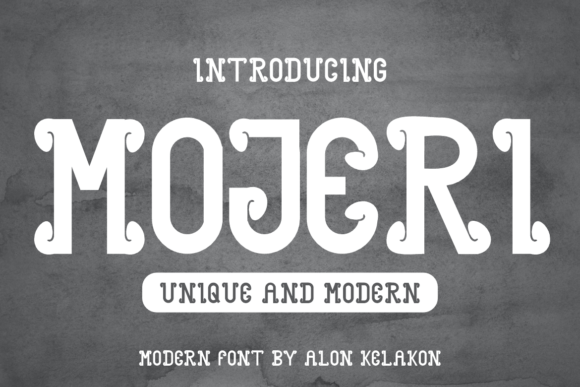
Immerse yourself in the captivating world of Mojeri: a font that embodies elegance and charm, meticulously crafted to bring a touch of sophistication to your design endeavors. With its graceful curves and delicate flourishes, Mojeri exudes a timeless allure that will leave a lasting impression on your audience.
As a decorative font, Mojeri shines in crafting official letters, invitations, and certificates. Its refined and legible style exudes professionalism and attention to detail. The smooth flow of its letters effortlessly guides the reader through your content, enhancing comprehension and engagement.
Mojeri is also a versatile font, adapting harmoniously to a wide range of design projects. Its intricate details lend an air of elegance to wedding invitations, adding a touch of romance and creating an unforgettable keepsake for your special day. Unleash your creativity and let Mojeri elevate your branding materials, transforming them into captivating visual statements that resonate with your audience.
For those with a passion for handwritten notes and personalized touches, Mojeri emerges as the perfect companion. Its natural charm adds a personal touch to your everyday correspondence, transforming simple messages into expressions of warmth and care. Embrace the art of handwritten notes, letting Mojeri's curves and flourishes convey your heartfelt sentiments in a way that words alone cannot.
Mojeri's versatility extends to the world of social media, where it seamlessly complements the visual storytelling of Instagram posts, Facebook updates, and Pinterest boards. Its decorative style lends an effortlessly chic touch to your online presence, capturing the attention of your audience and encouraging them to engage with your content.
With Mojeri at your disposal, the possibilities are endless. Its timeless beauty and adaptability make it a font that will stand the test of time, accompanying you through countless design projects and creative endeavors. Embrace its elegance and watch as your creations blossom into masterpieces that captivate and inspire.